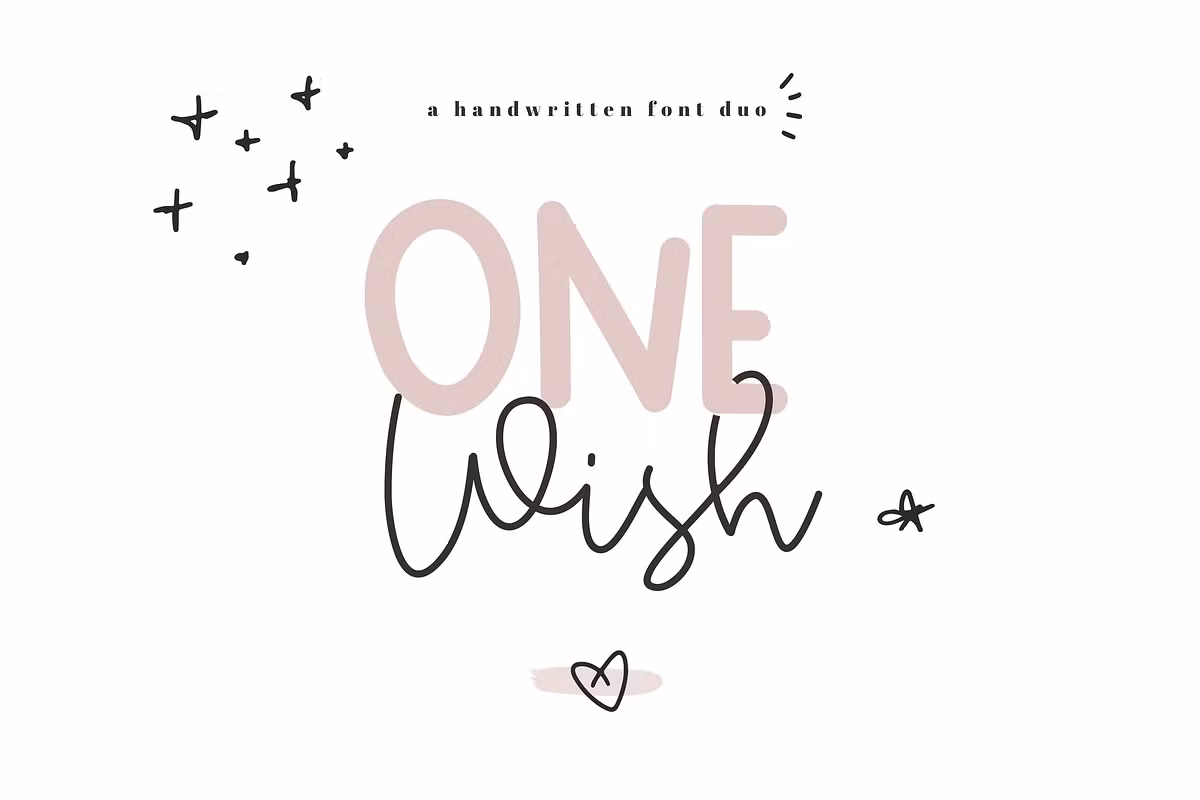
One Wish - Handwritten Font Duo Free Download
The One Wish - Handwritten Font Duo Free Download is a charming and versatile font bundle that combines a playful handwritten script with a clean, minimalist sans-serif. Perfect for branding, invitations, social media graphics, logos, and more, this duo provides a unique combination of personality and modern simplicity.
The One Wish Script font offers elegant, flowing letterforms, while the One Wish Sans font provides a clean contrast, making them ideal for pairing in your design projects. The duo includes uppercase and lowercase letters, numbers, punctuation, and multilingual support, making it flexible for various design applications.